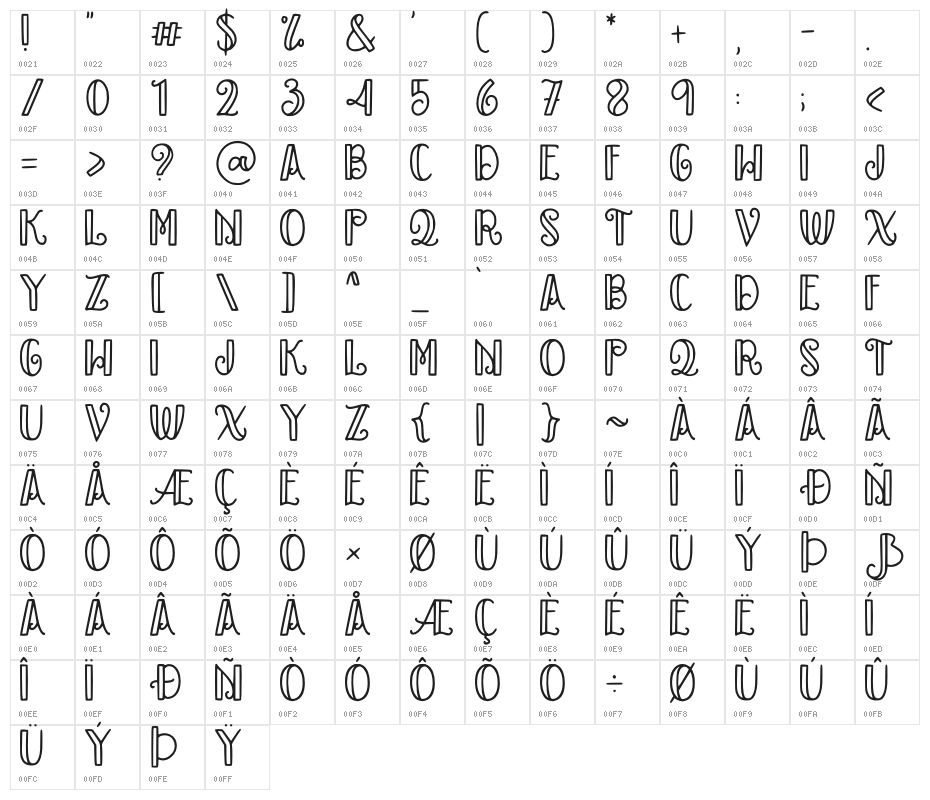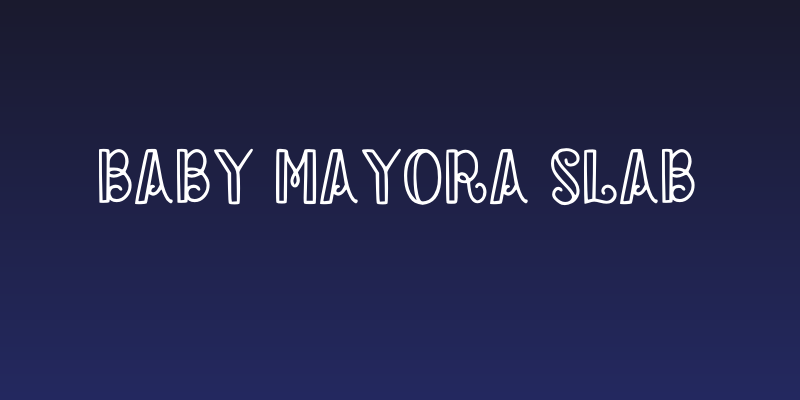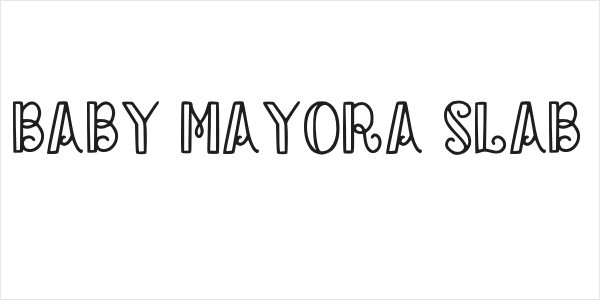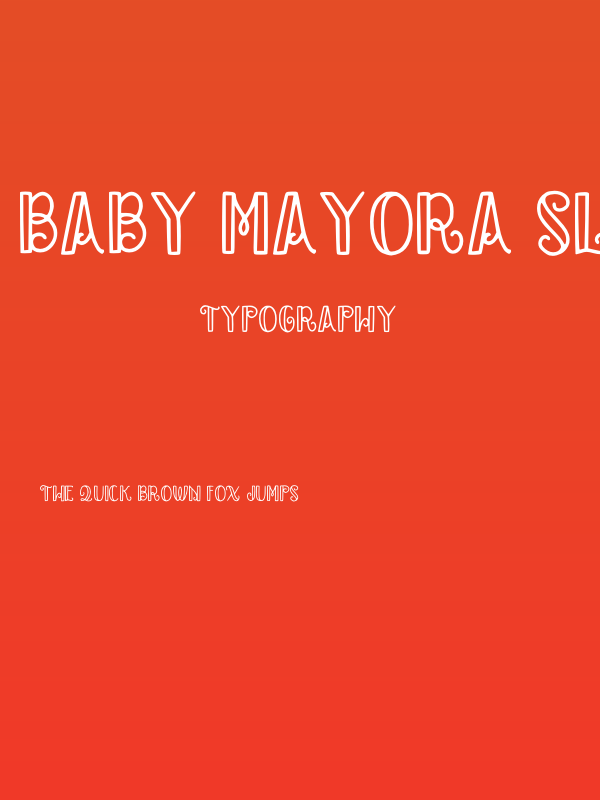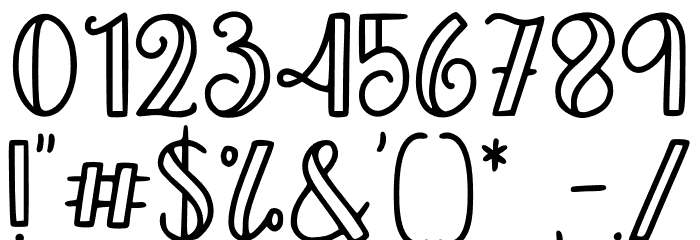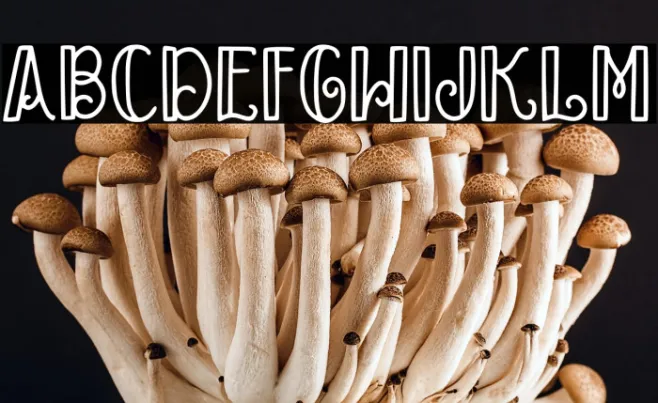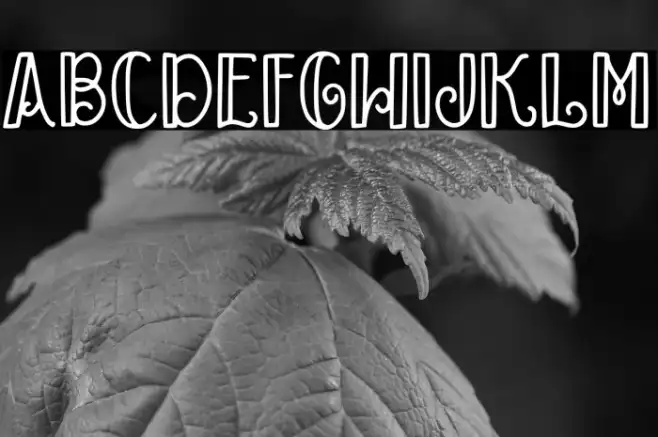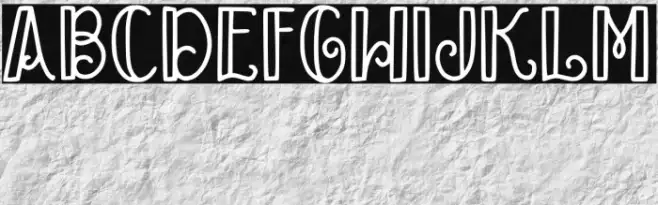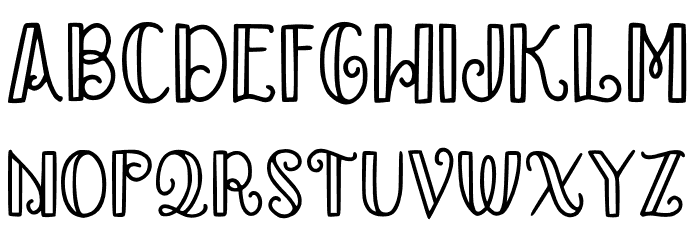
Baby Mayora Slab Font
Baby Mayora Slab Description
This font features a playful and whimsical design with a slab serif style. Each character is crafted with a bold outline and a hollow interior, giving it a unique and eye-catching appearance. The uppercase and lowercase letters maintain a consistent style, with rounded edges and a slight curl at the ends, adding a touch of elegance. The numbers and special characters follow the same design principles, ensuring uniformity across the font. The overall look is both modern and decorative, making it suitable for creative and fun projects.